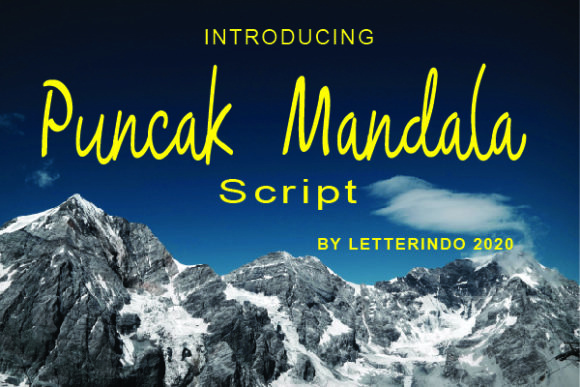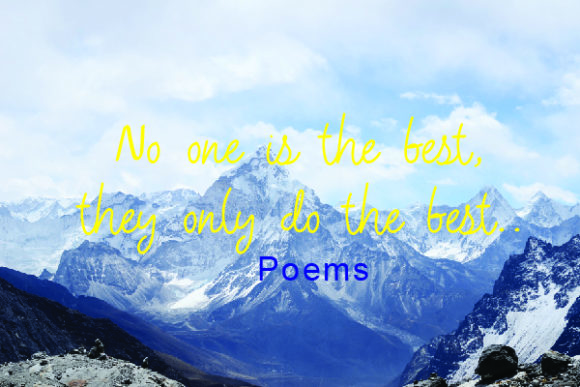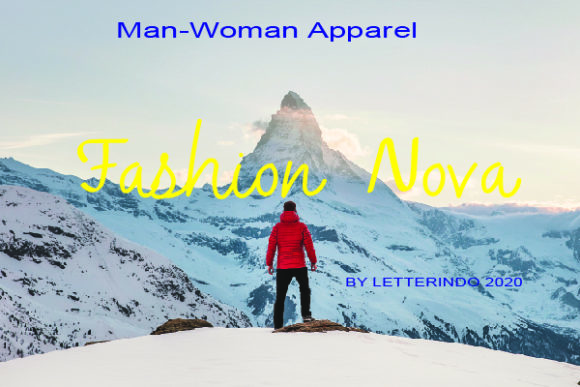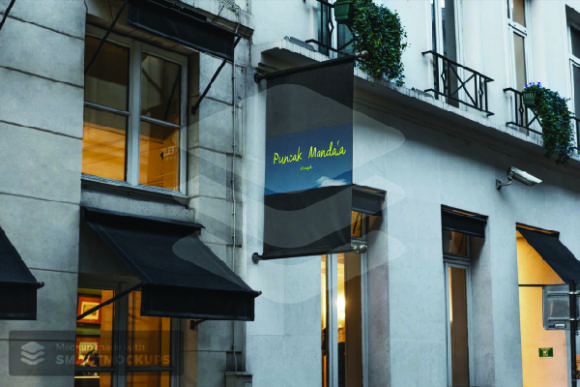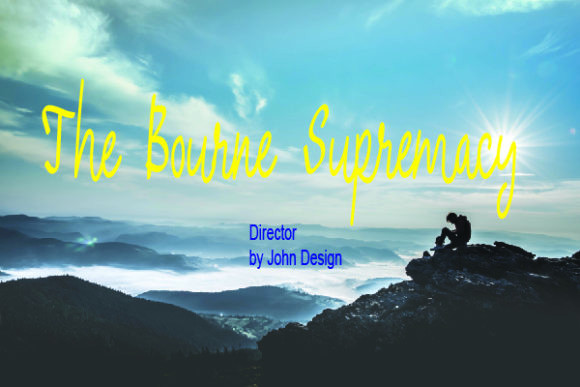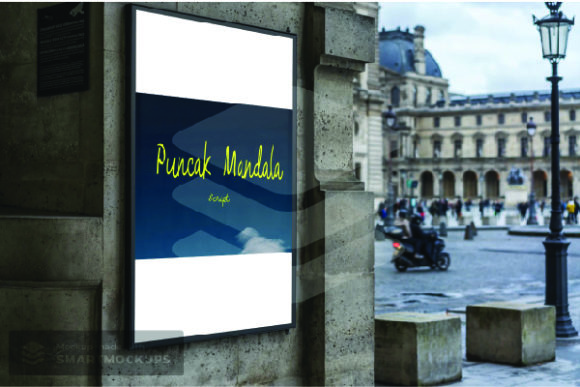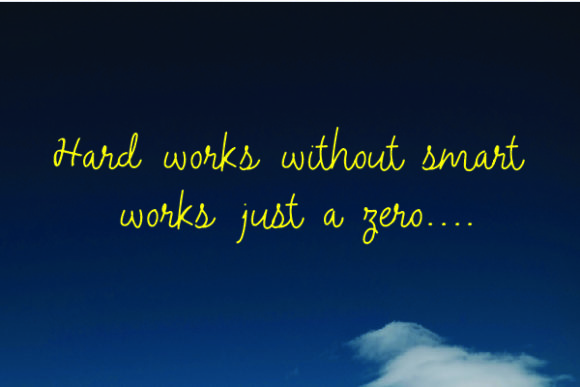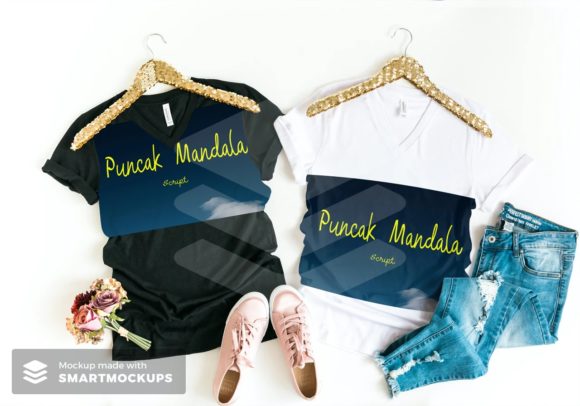
Puncak Mandala Font
About Puncak Mandala Font
Puncak Mandala is a sweet handwritten font that will look outstanding in a wide variety of designs. Fall in love with its authentic feel and use it to create gorgeous wedding invitations, beautiful stationary art, eye-catching social media posts, and cute greeting cards.